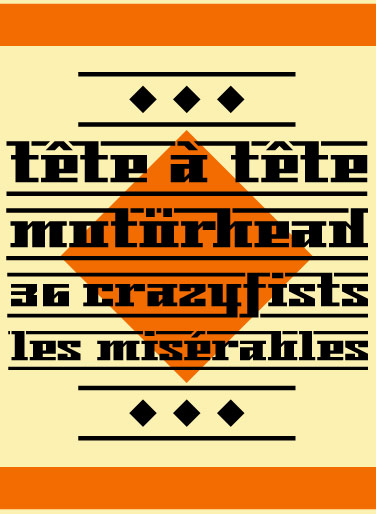
Wonderful stuff, Kix. How about adding some numerals for all those bands with numbers in their name? And you got to throw some umlauts in there. Motörhead?
It's well conceived. It would look just as good without the slash top and bottom too, I'm thinking.
ok!
fontstruction complete!
i added some numerals and "umlaut" to make this one a little more international.
enjoy!
later:
the numerals grew one brick higher, and i added sharp "s".
Quite perfect! :) The accents are mesmerizing. I love it!
Sleek. Could be the new Ferrari logo font.
Interesting mix of old and new. Ligatures are well done.
WOW!
It remebers me the Lambretta logo style
Good work
This is one of my favorites on the whole site. It's so effective. Reminds me of the Pirelli Tires logo - is that what inspired it?
"empty glyph" changed from "." to spacebar :)
damn this is good
I think I missed this one the first time around. Excellent work, kix!!!
CORSO
Reminds me of Devanagari from those bars
guess where i put "+" and "-". :)
in + and - respectively.